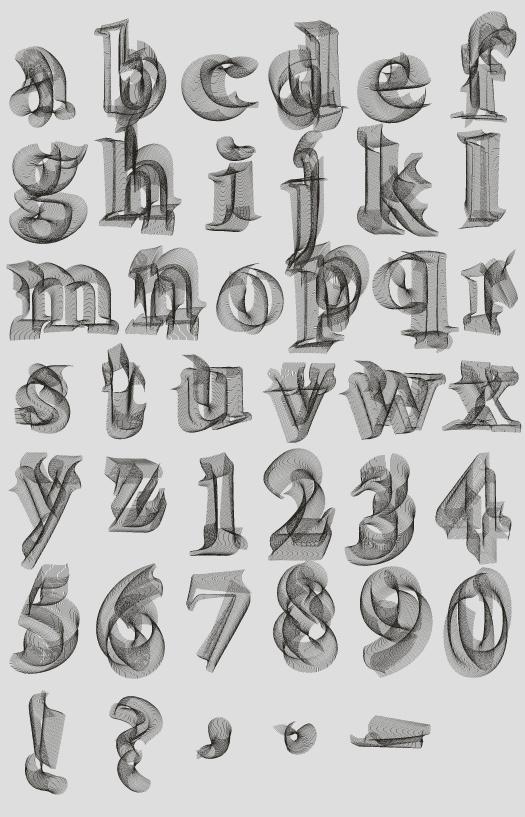
HandMadeFont is a Tallinn, Estonia based design company. It was founded in 2008 by Vladimir Loginov and Maksim Loginov and specializes in developing unique, untraditional fonts.